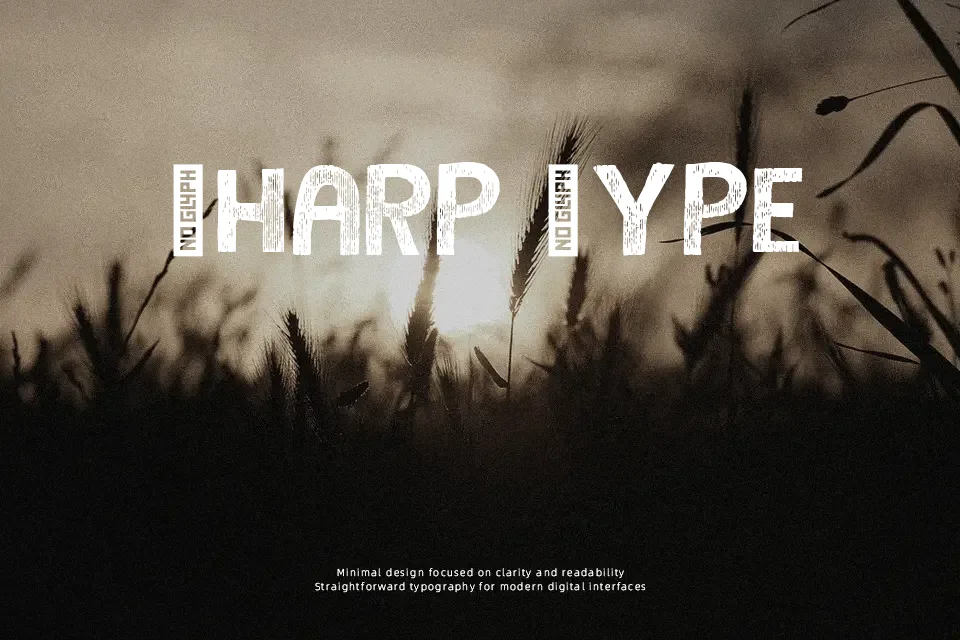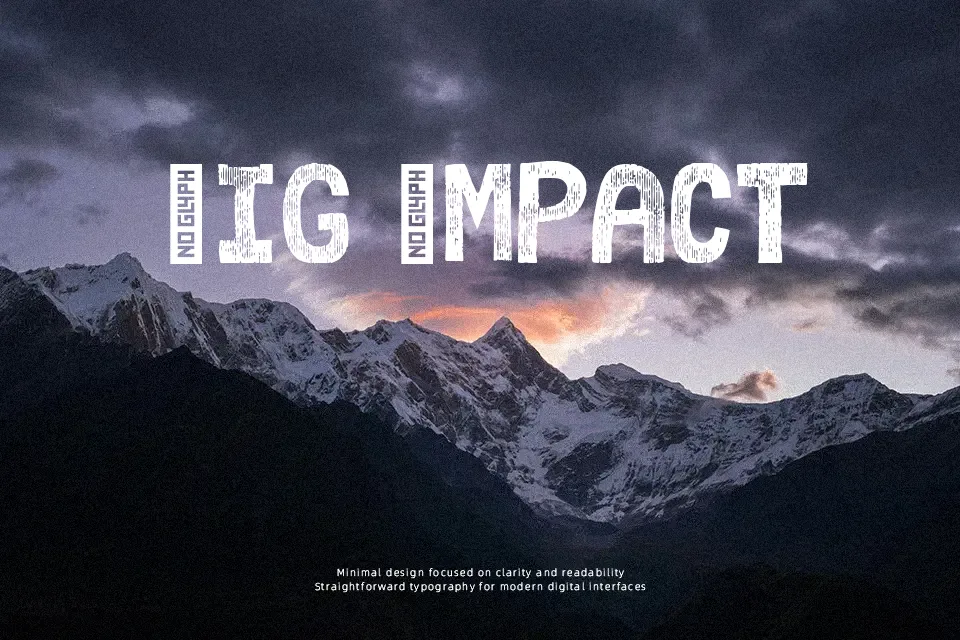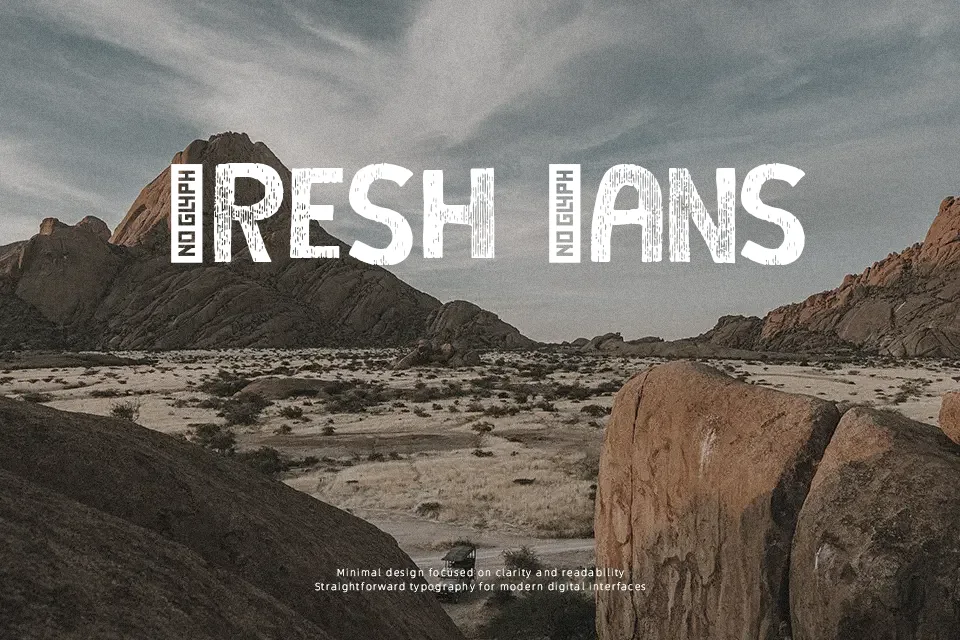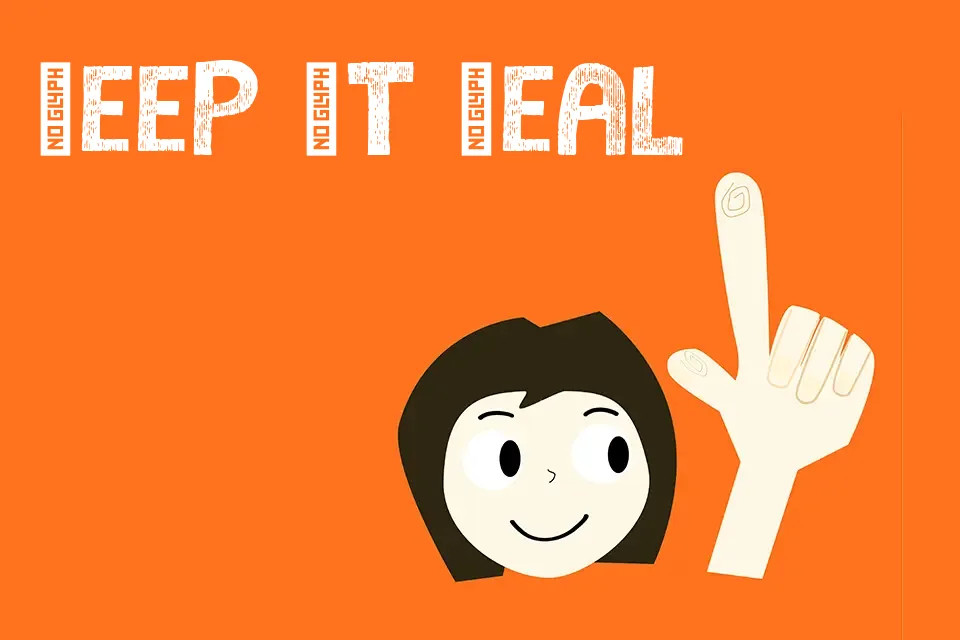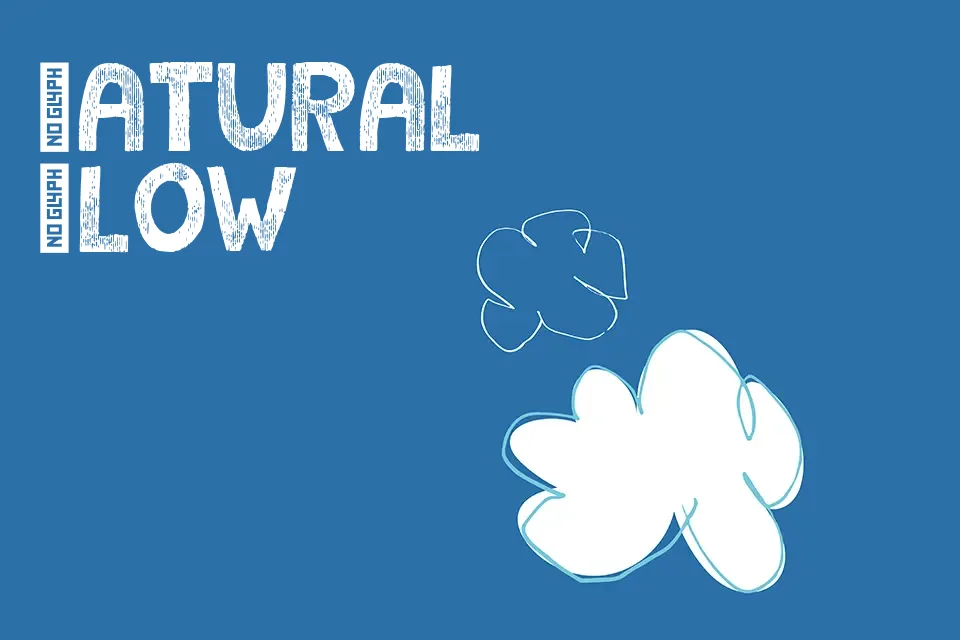
Campkid Font
Campkid Font leans into a loose, hand-drawn cartoon look, with rounded strokes, irregular curves, and slightly wobbly baselines that make text feel energetic rather than polished. The letters are bold and compact, so headlines stay readable even at smaller sizes, though longer paragraphs can feel visually heavy. It fits nicely in kids’ camp graphics, activity sheets, snack or toy packaging, and playful logo wordmarks that need a friendly, outdoorsy voice. Use it when you want informal, child-facing typography with a touch of mischief; avoid it in formal branding, long editorial layouts, or professional interfaces where clean structure and neutrality matter more.
kids camp posters and flyers
playful branding for snacks,toys,or games
YouTube thumbnails and social posts aimed at children
event signage for school fairs or outdoor activities
long paragraphs or serious editorial layouts
corporate or professional brand identities
UI design where clarity and neutrality are critical
formal documents or luxury-focused projects
Perfect for branding, kids, and logo, with a creative and cartoon style.